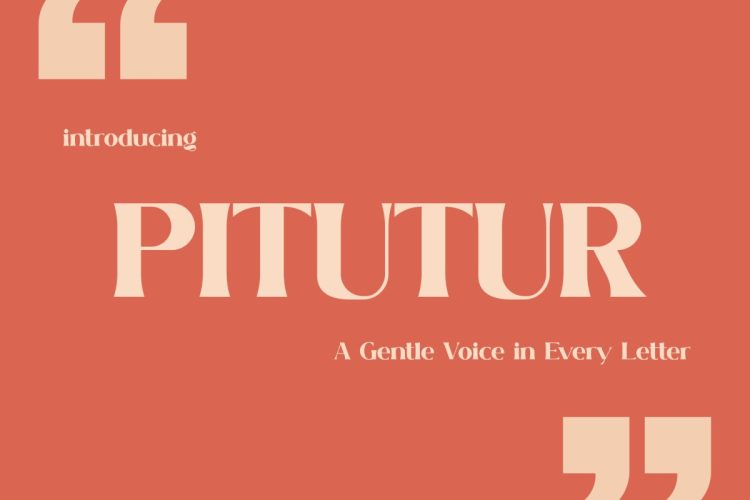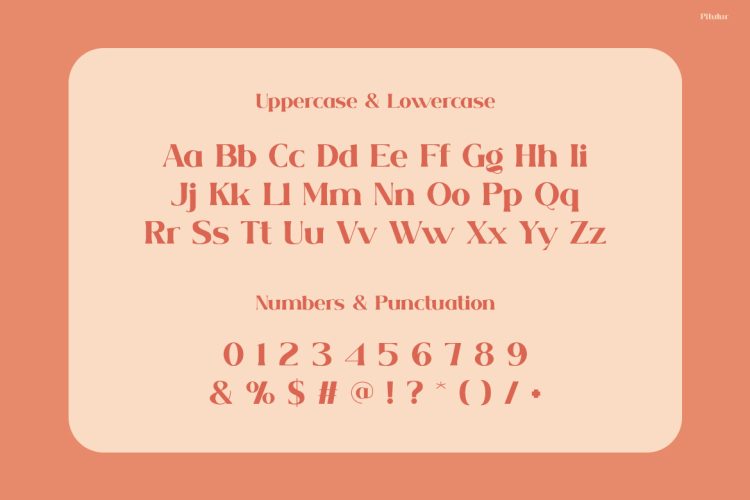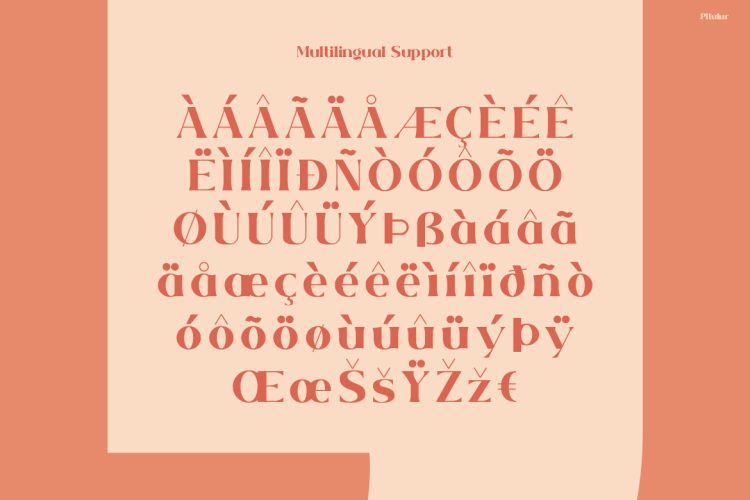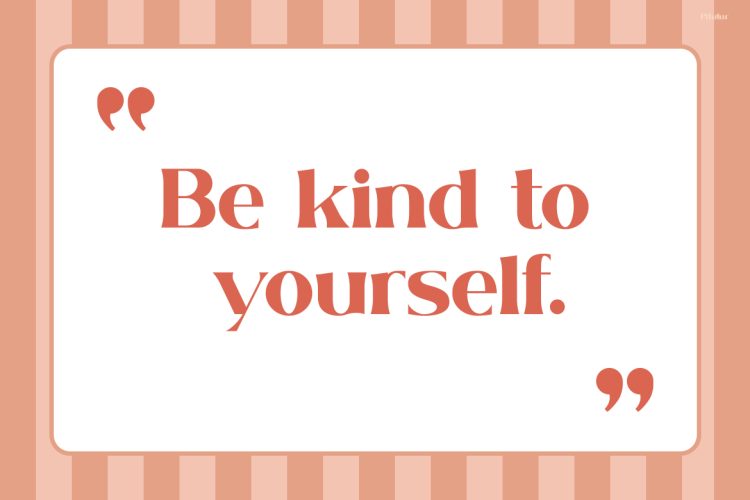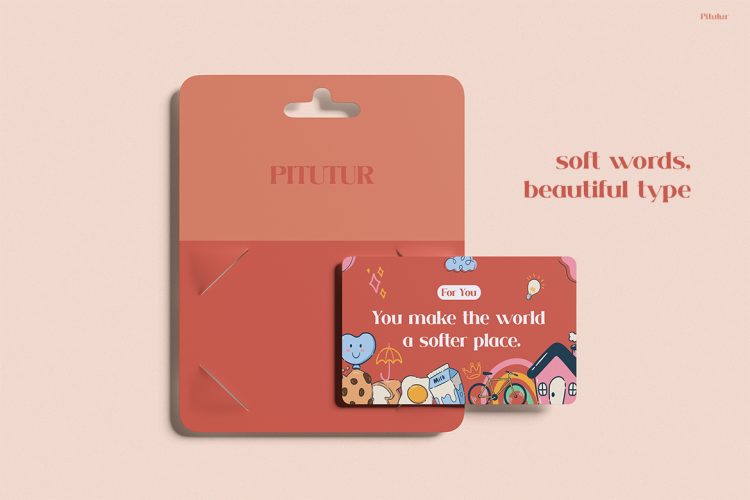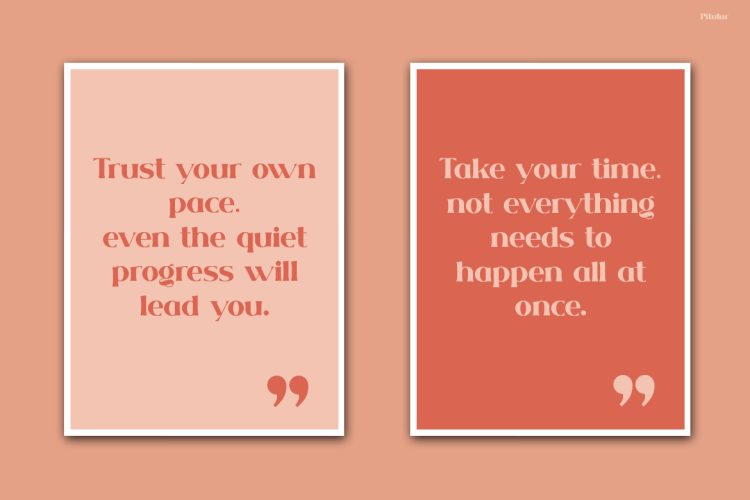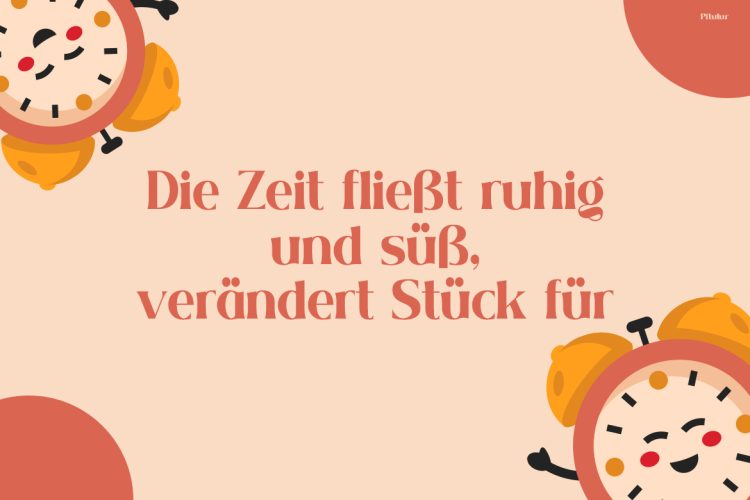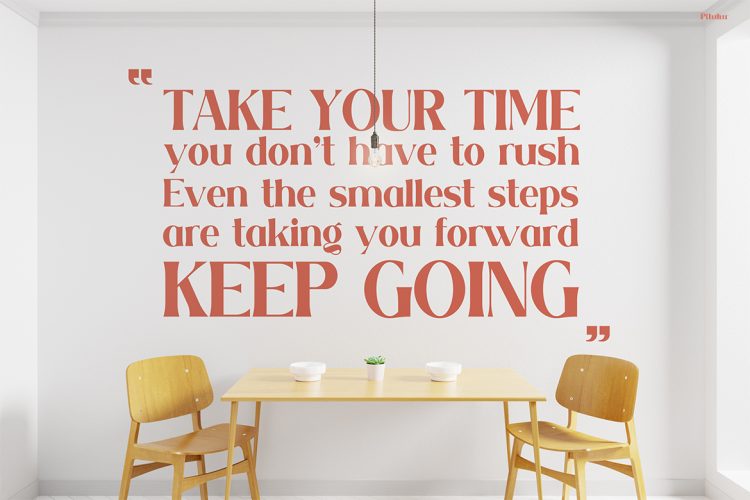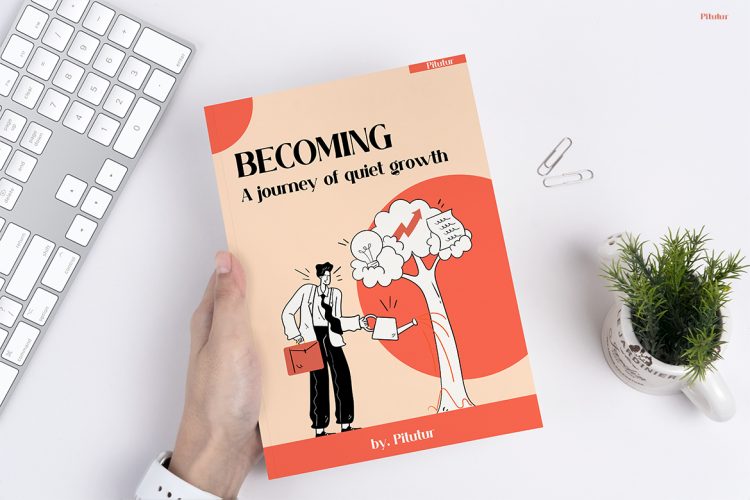
Instagram Font PITUTUR โ Warm Editorial Serif with Soulful Charm
Instagram Font PITUTUR is a refined serif typeface with soft curves and balanced proportions. At first glance, it feels elegant, yet friendly and modern. Moreover, the design blends vintage charm with a clean, contemporary look. Each letter is carefully crafted, so it feels expressive and inviting. As a result, your text looks stylish without losing readability. In addition, the subtle contrast and smooth shapes create a calm visual flow. Therefore, it works perfectly for storytelling and aesthetic content. With support for 67 languages, PITUTUR also helps you reach a global audience with ease.
Instagram Font PITUTUR offers a strong mix of classic serif structure and modern softness. For example, it works beautifully for headlines, quotes, and social media designs. Furthermore, the font includes stylish alternates that enhance visual appeal. Because of its clean form, layouts stay neat and easy to read. In addition, you can pair it with minimal or bold styles. Either way, the result remains consistent and attractive. Overall, PITUTUR gives your designs a warm and polished look.
This font is ideal for designers, content creators, and brand owners. Specifically, it suits lifestyle brands, beauty products, and wellness businesses. Moreover, it works well for cafes, blogs, and inspirational content. In fact, it is perfect for anyone who wants a soft and emotional visual tone. Therefore, if your audience values aesthetics, PITUTUR becomes a strong and reliable choice.